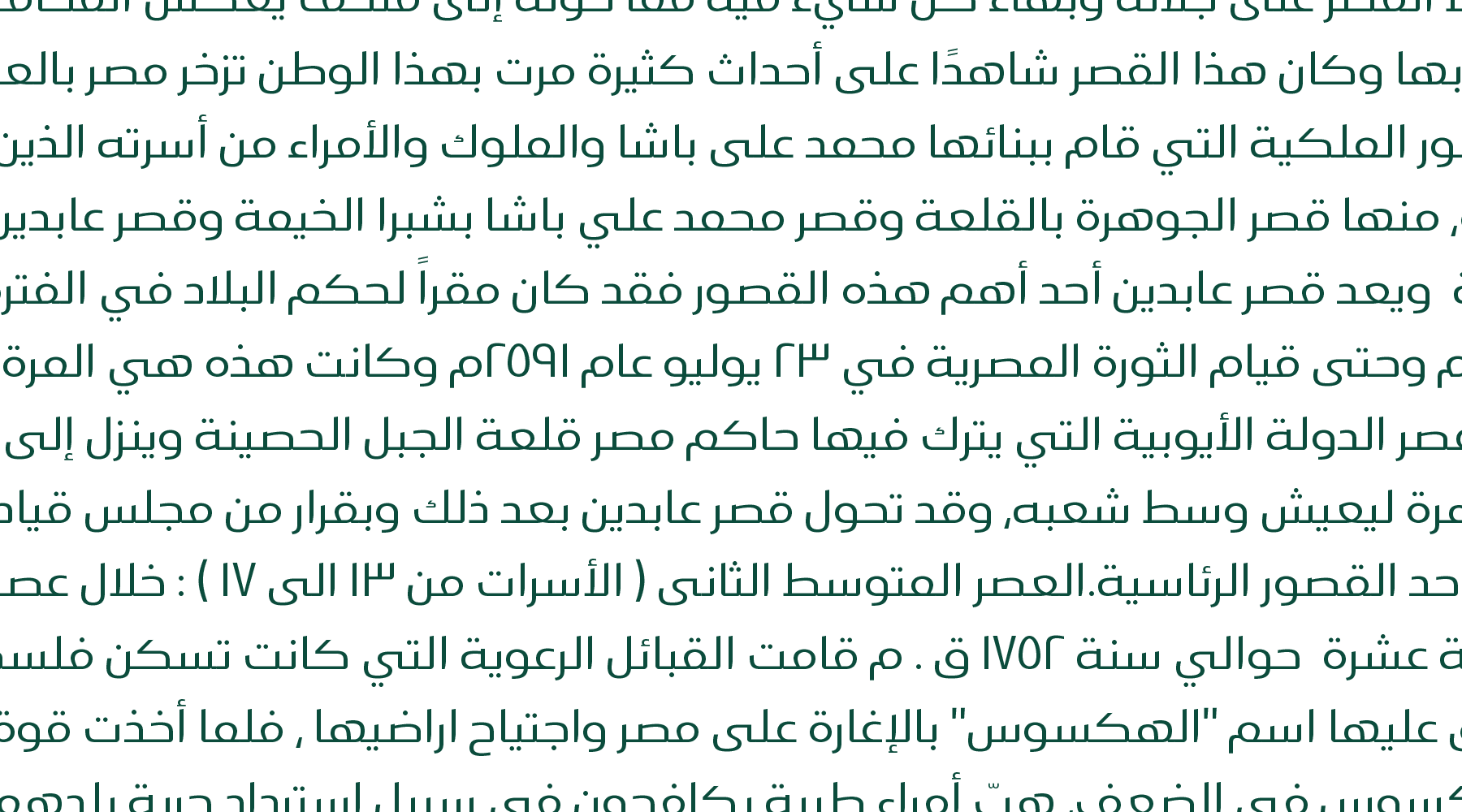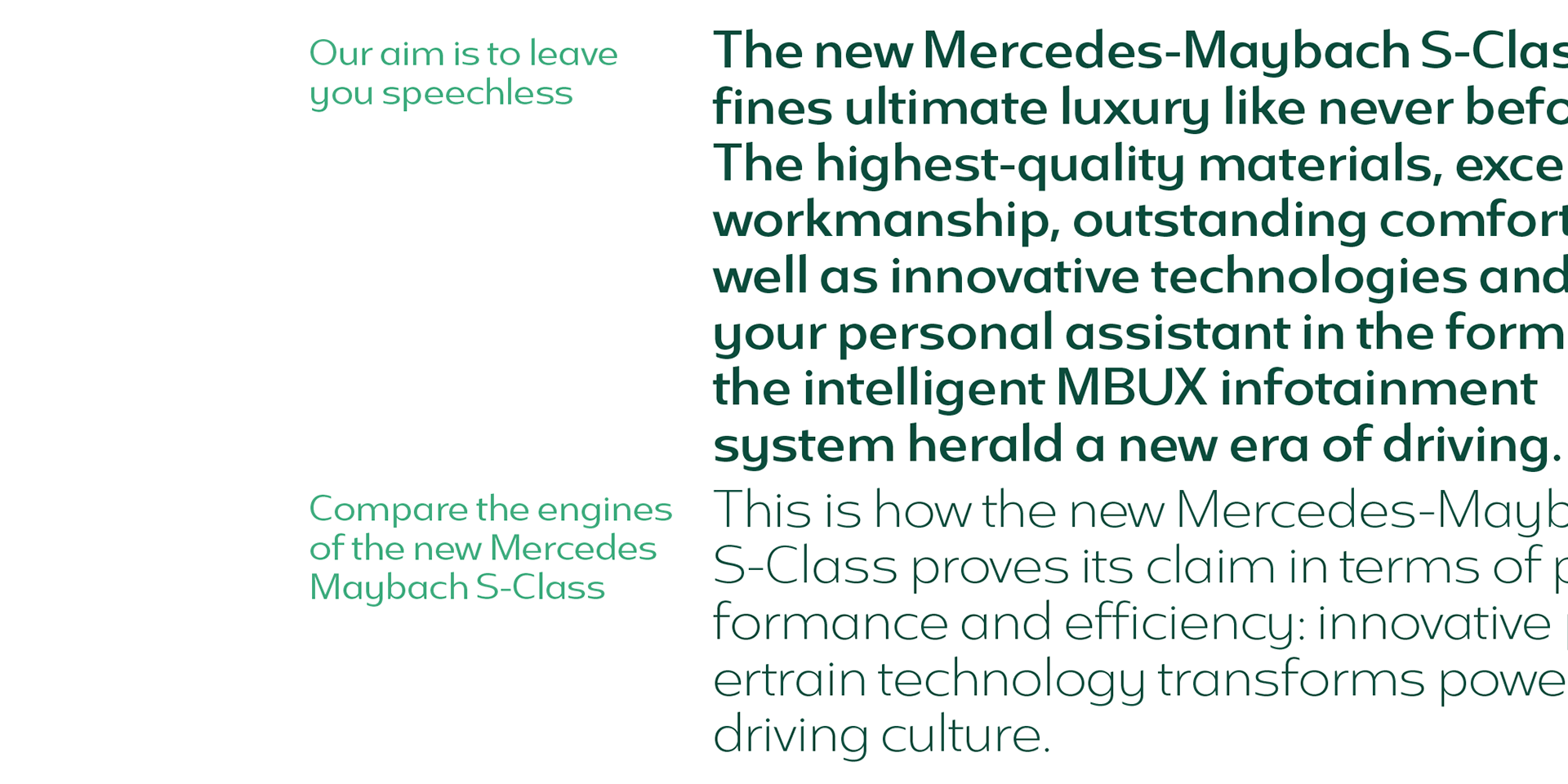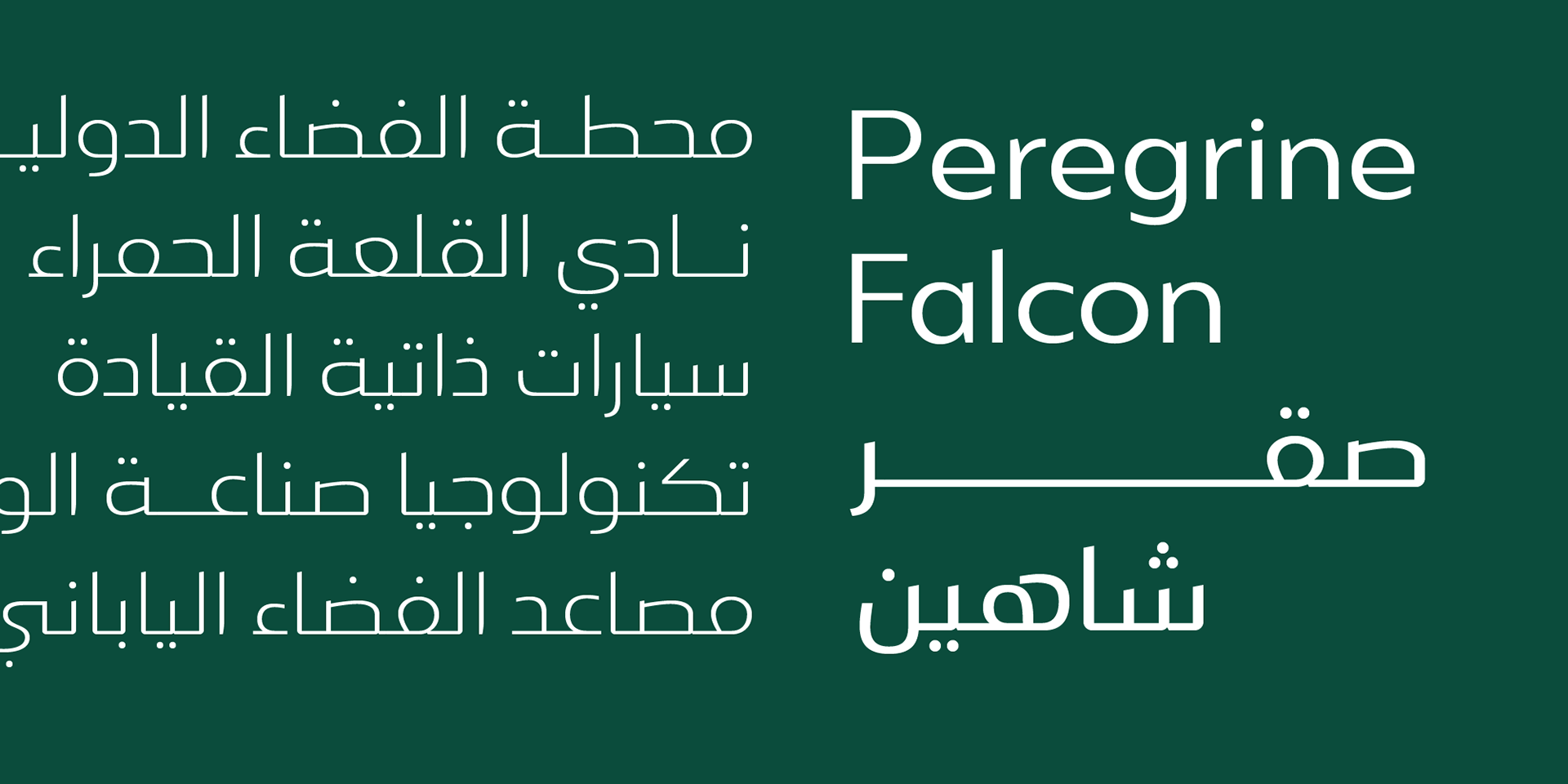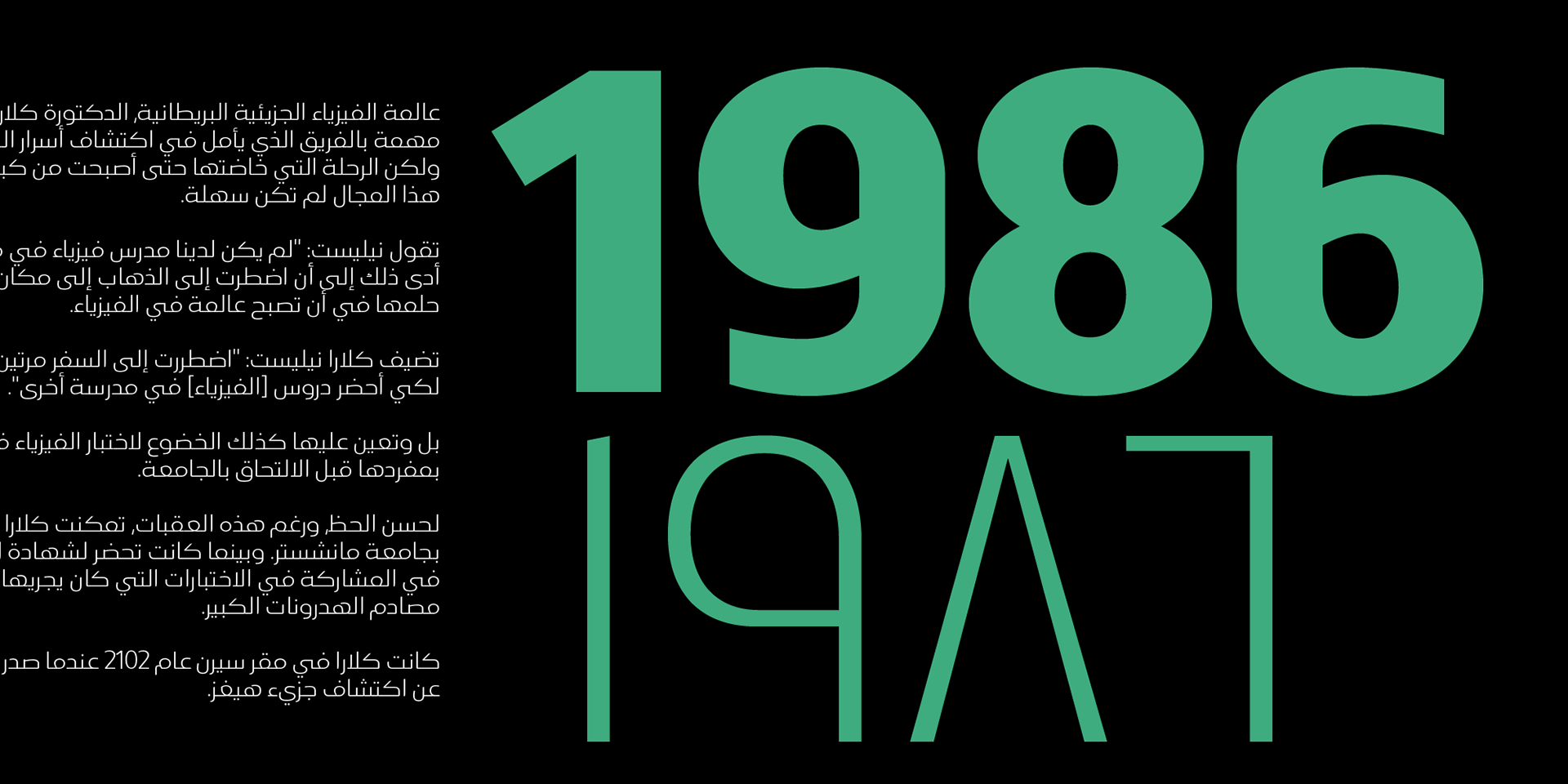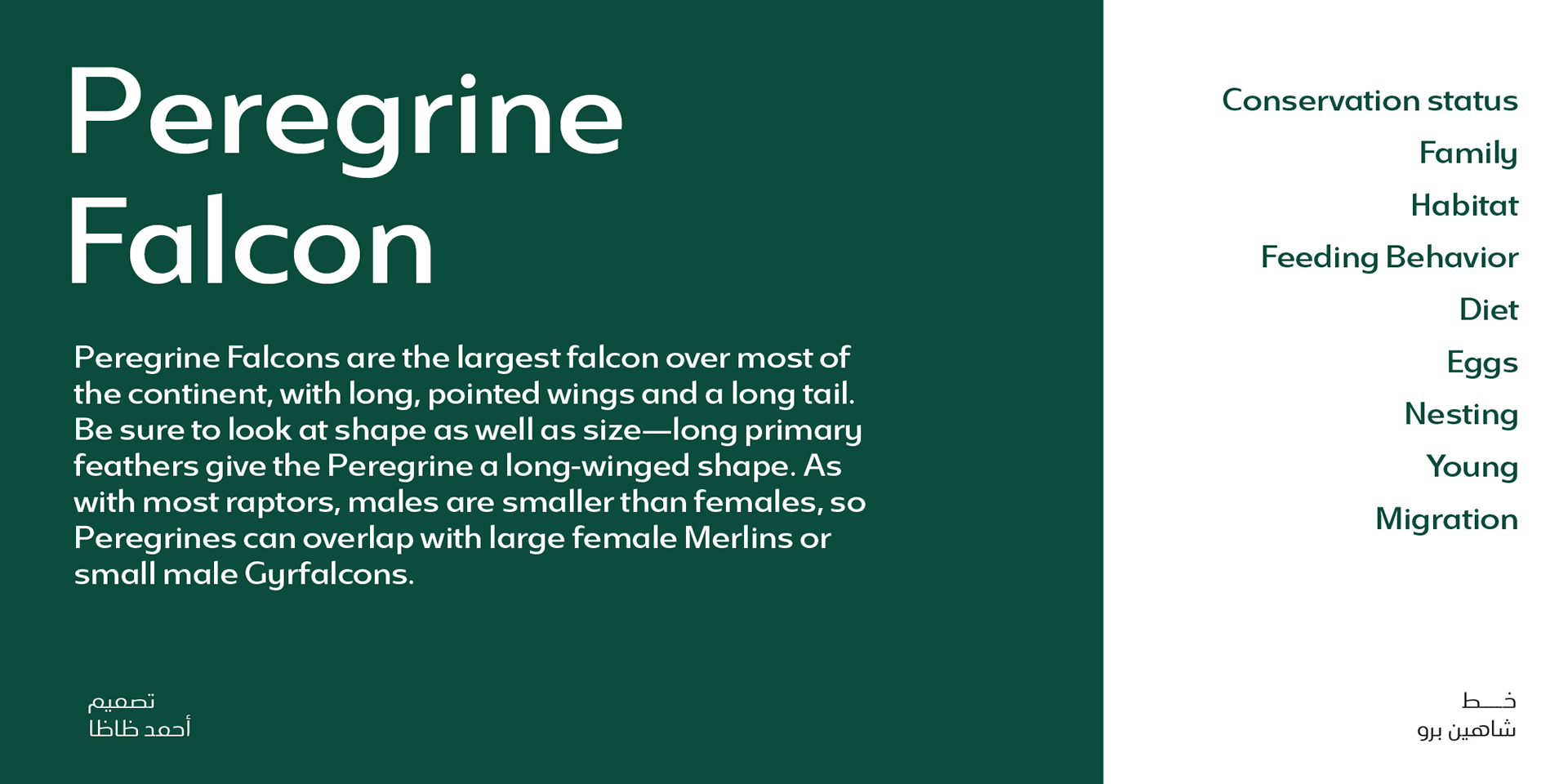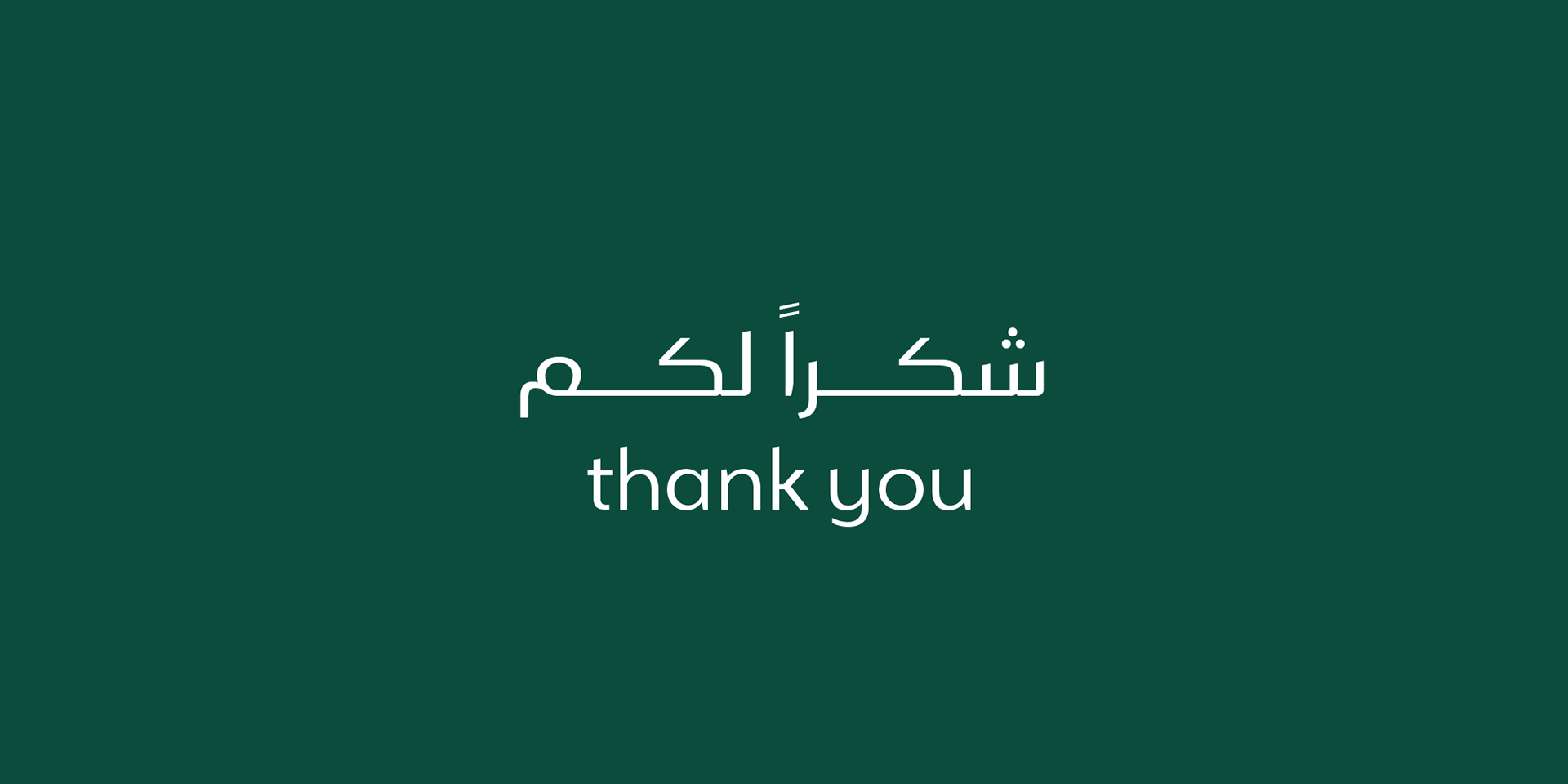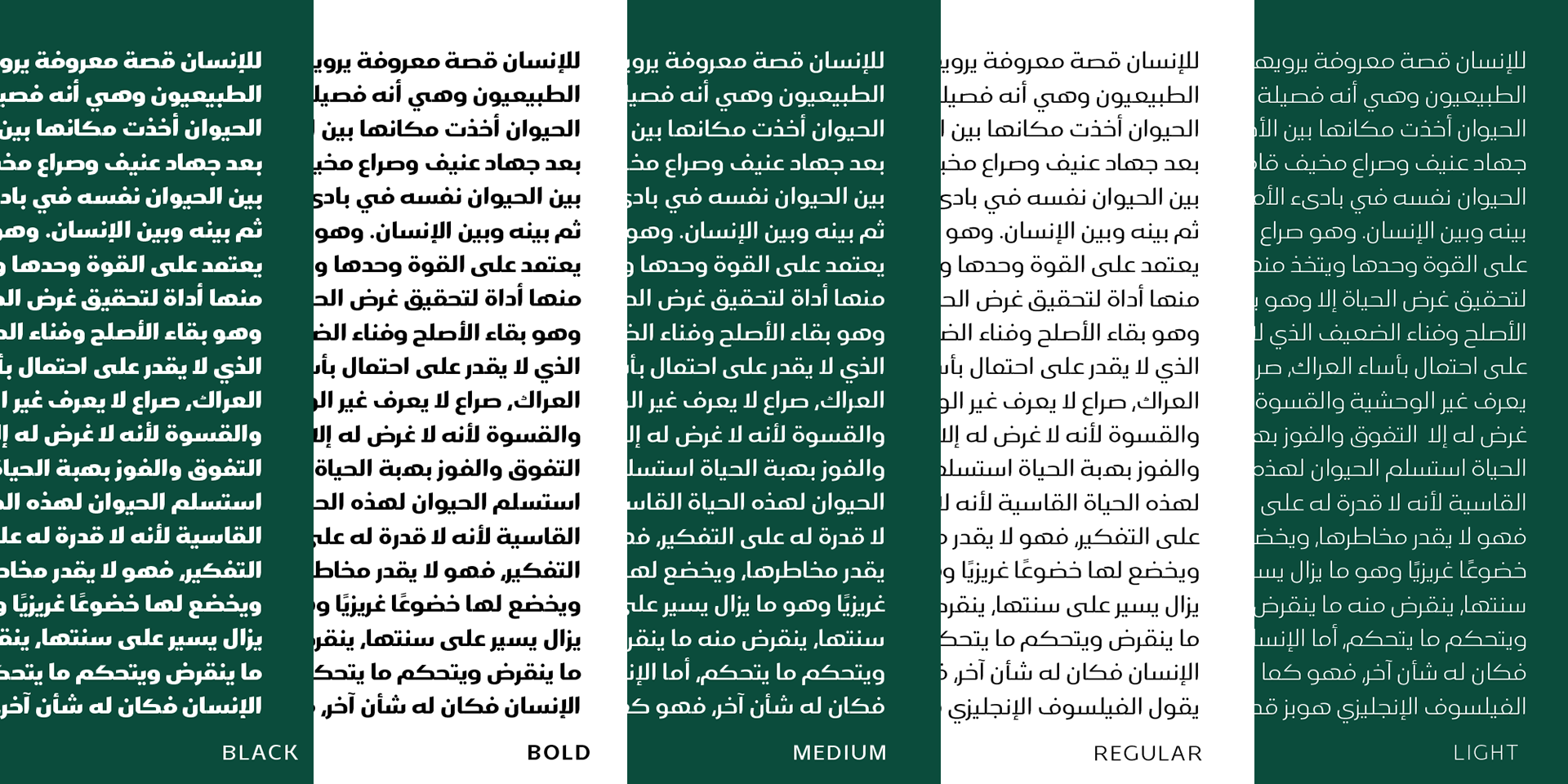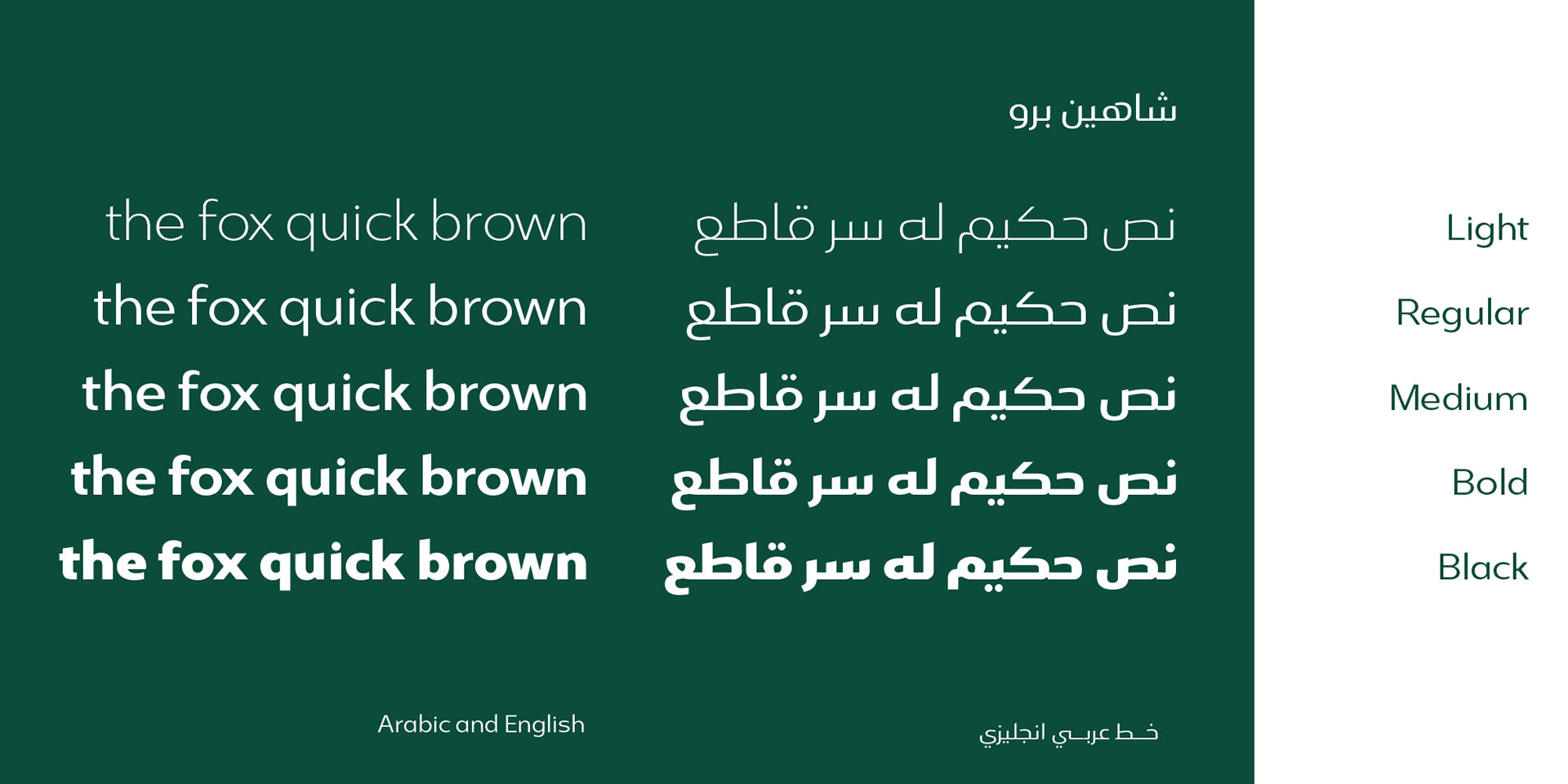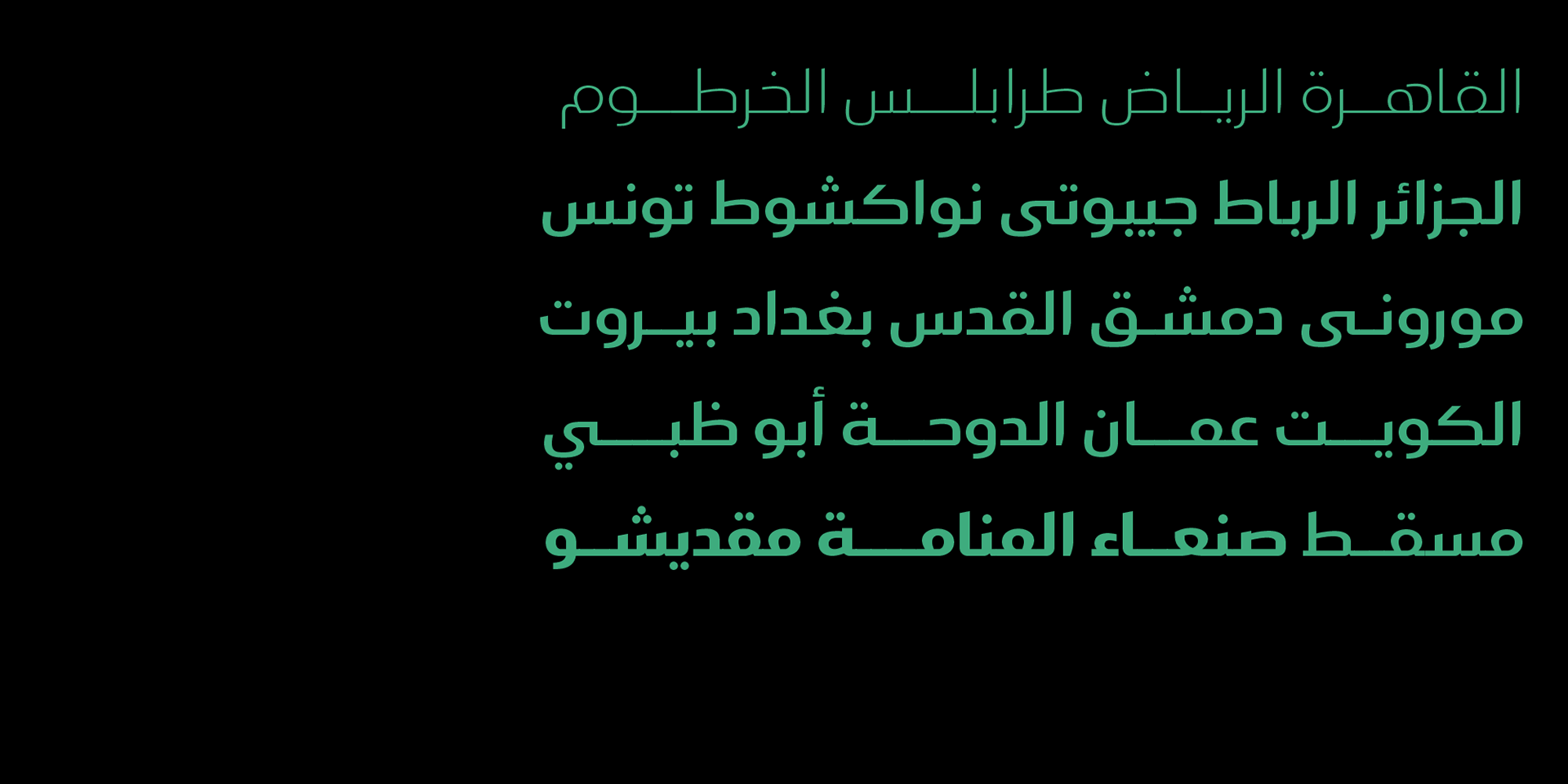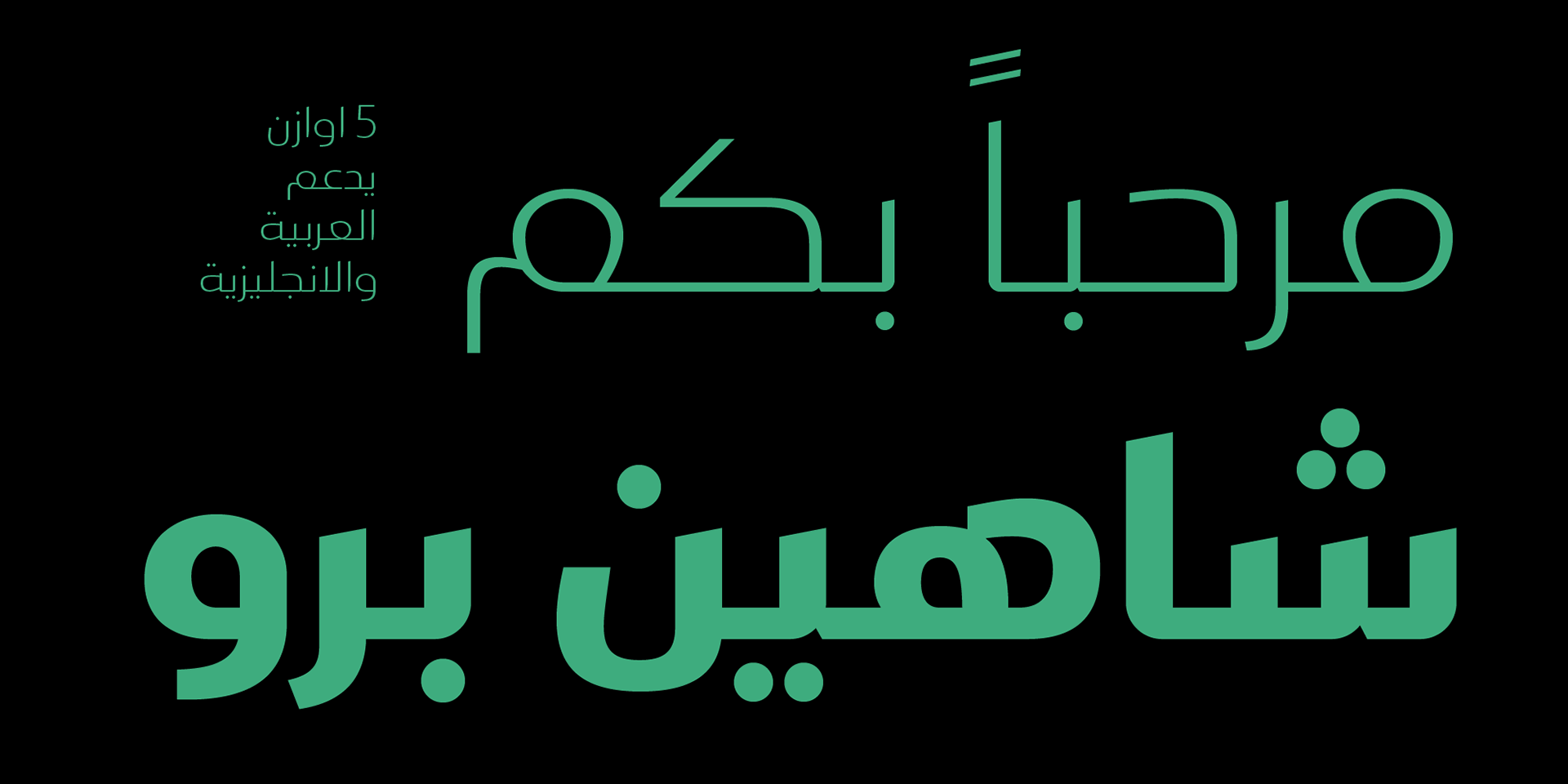
Shaheen pro Arabic typeface
Shaheen pro is a version of Shaheen typeface, Shaheen pro is an Arabic and Latin typeface that embodies power and a tendency towards uniformity. While preserving the neat, minimalist look which is associated with it. The name, too, hints at the strong cha…